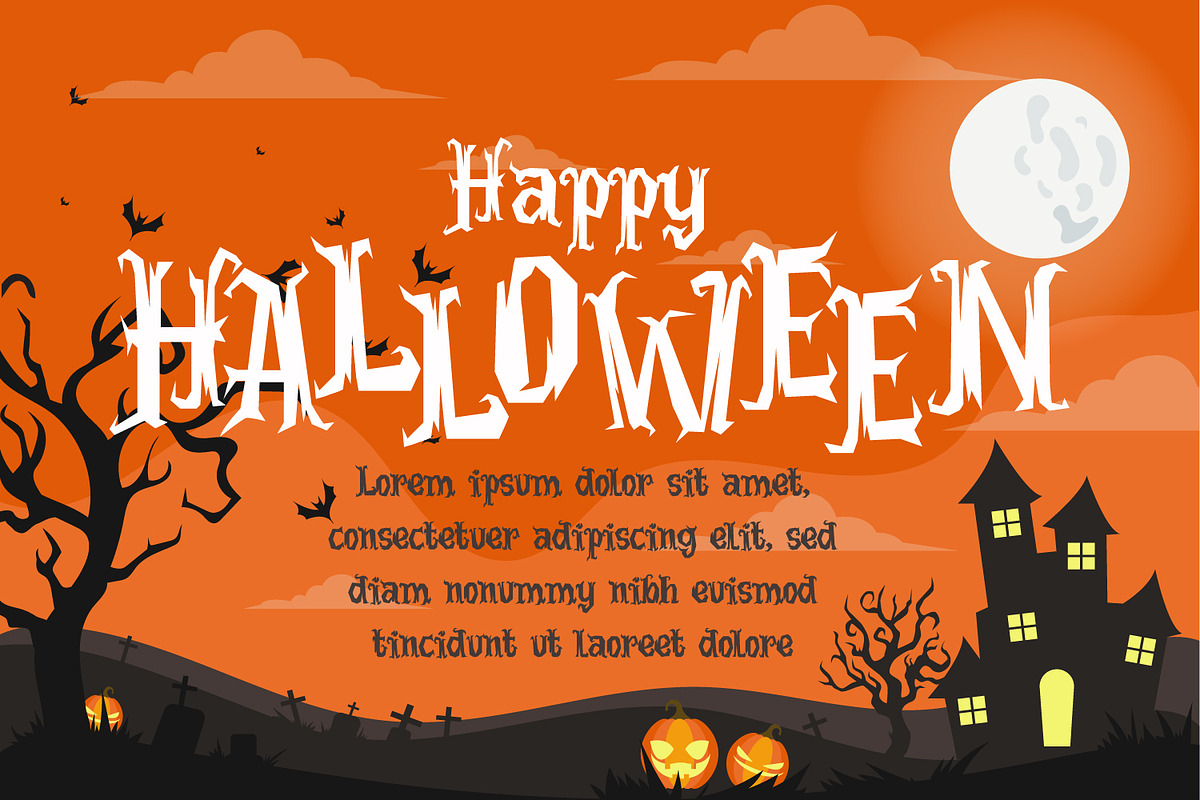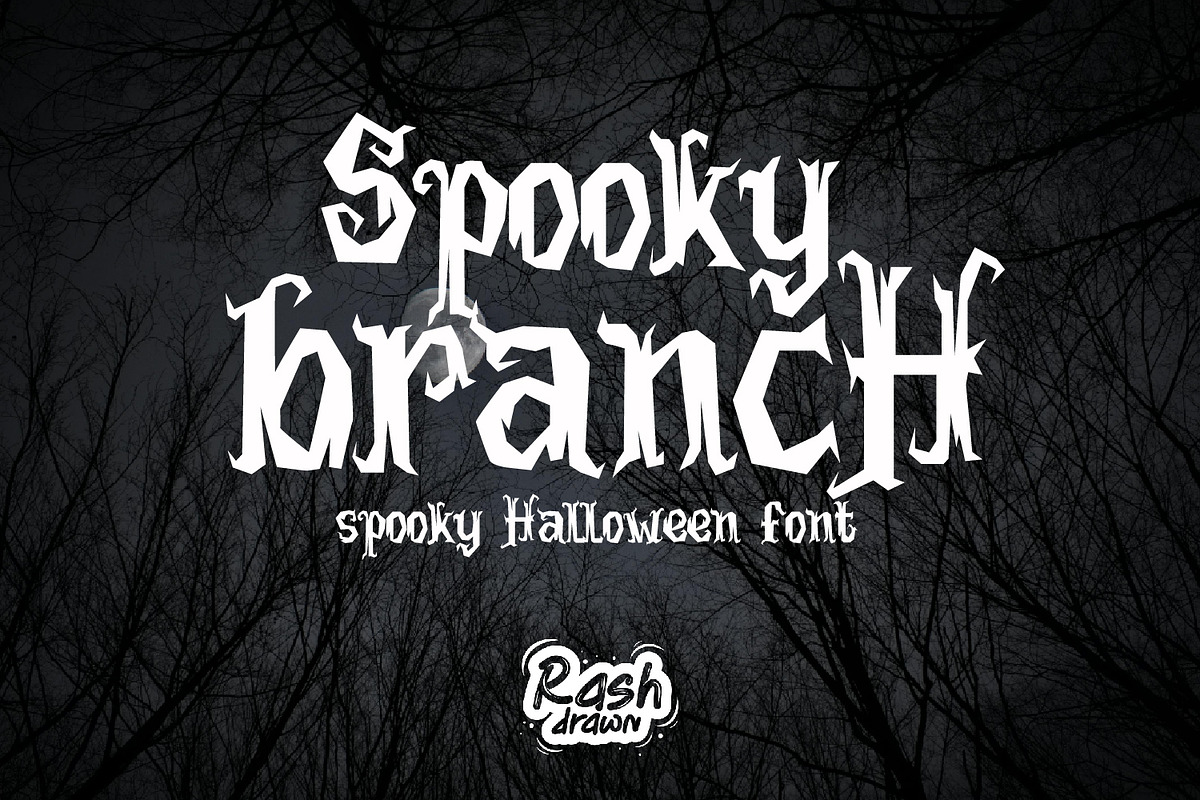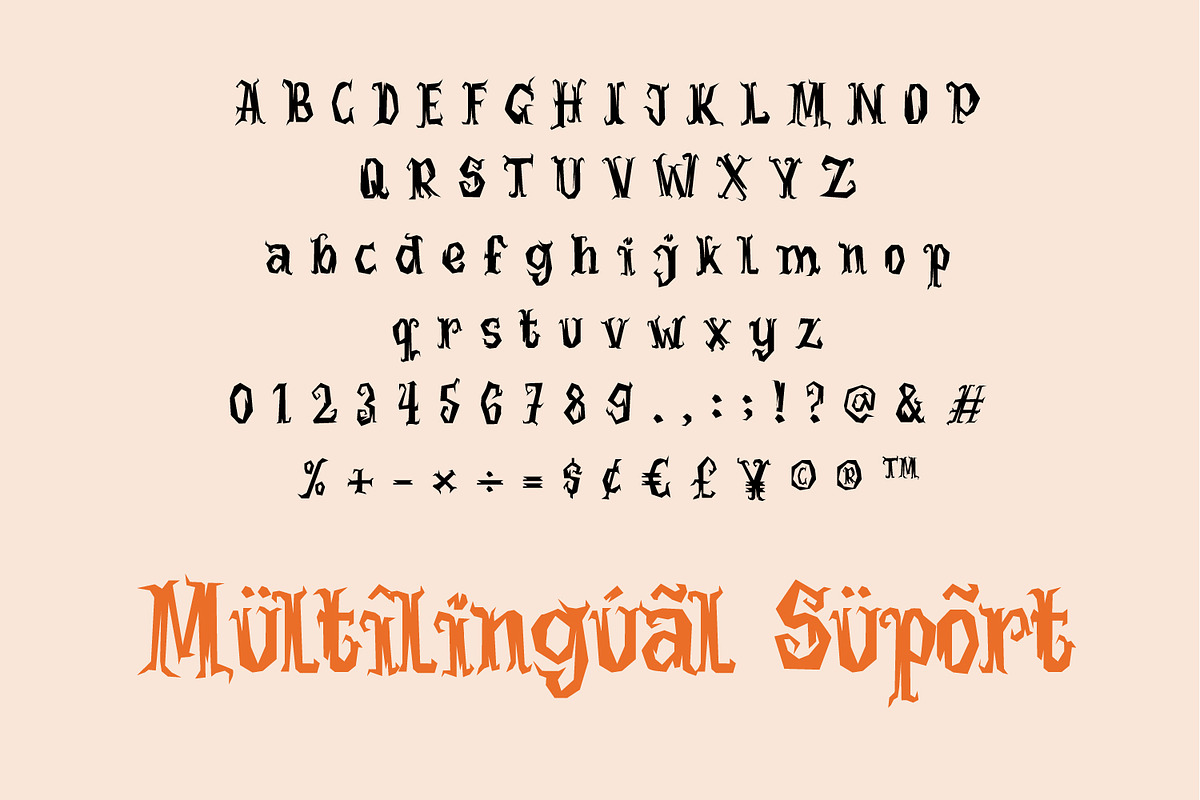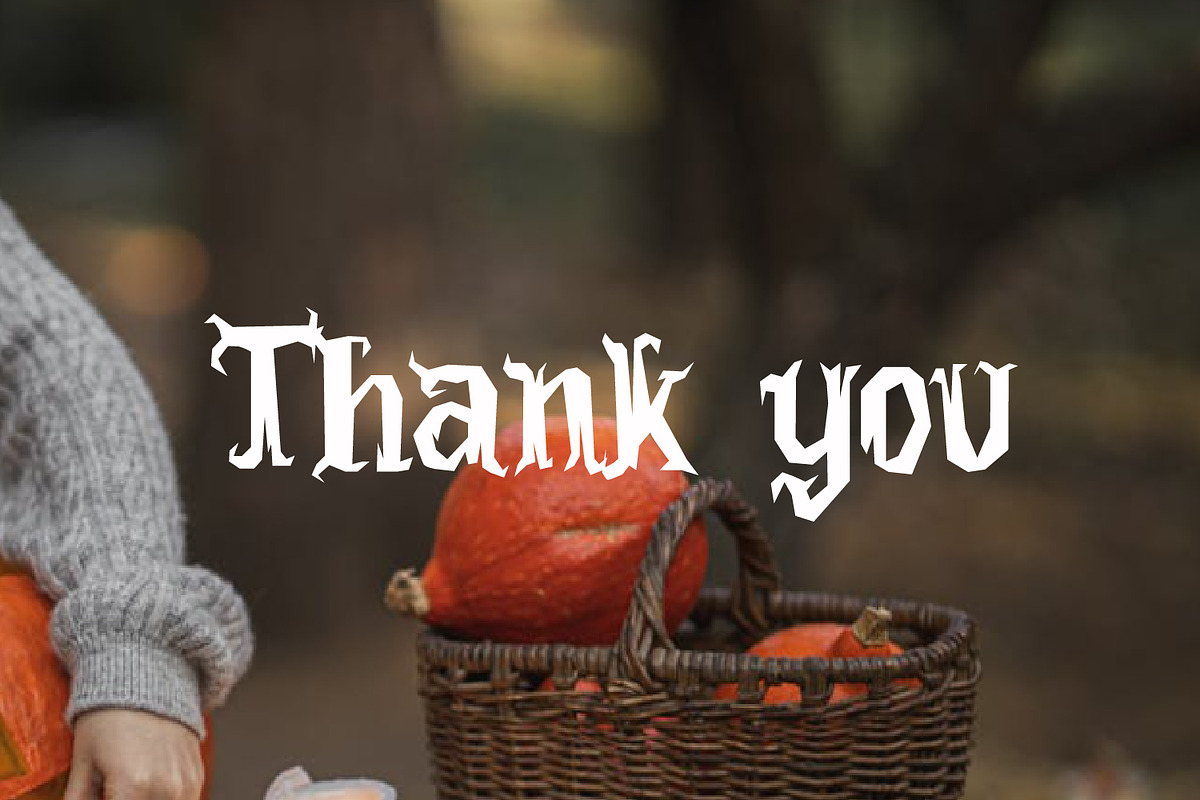
SpookyBranc
SpookyBranch Font is a captivating and spooky display font designed to perfectly encapsulate the spirit of Halloween. This display font is an ideal choice for creating chilling and eye-catching designs for Halloween-themed posters, apparel, embroidery, crafts, and other festive applications.
The “SpookyBranch” font features bold, gothic-inspired letterforms that evoke an eerie and macabre ambiance. Each character is meticulously crafted to resemble elements commonly associated with Halloween. The lettering is infused with a playful yet haunting essence, making it a perfect choice for various creative projects related to the holiday.